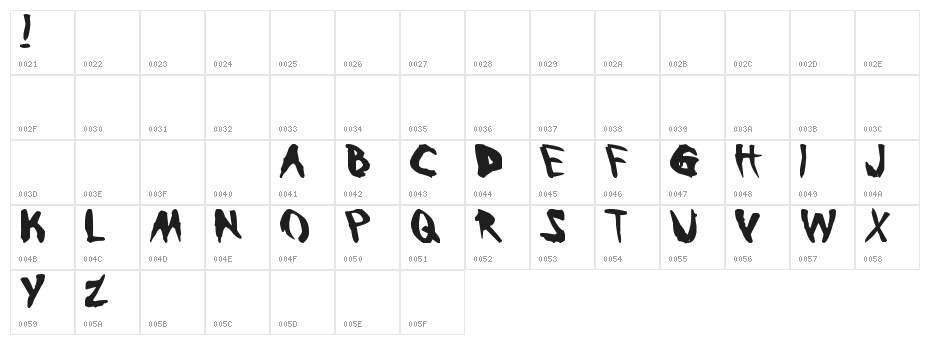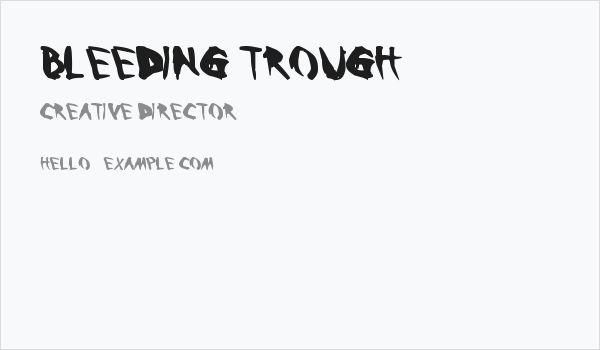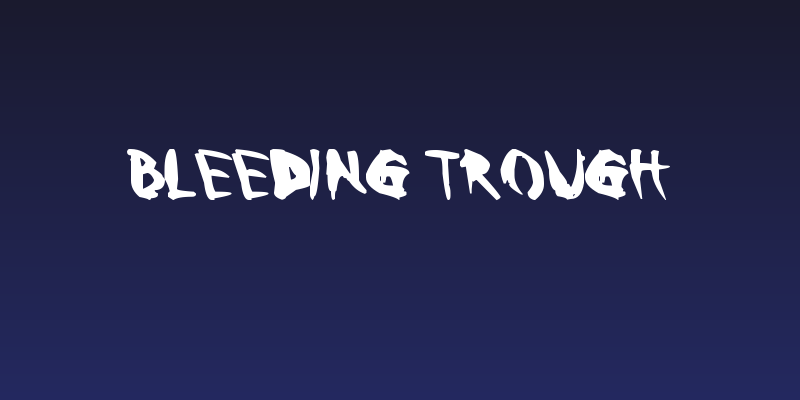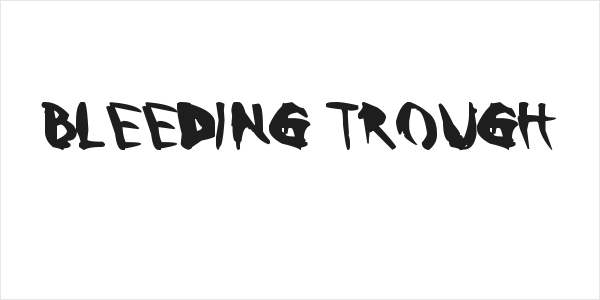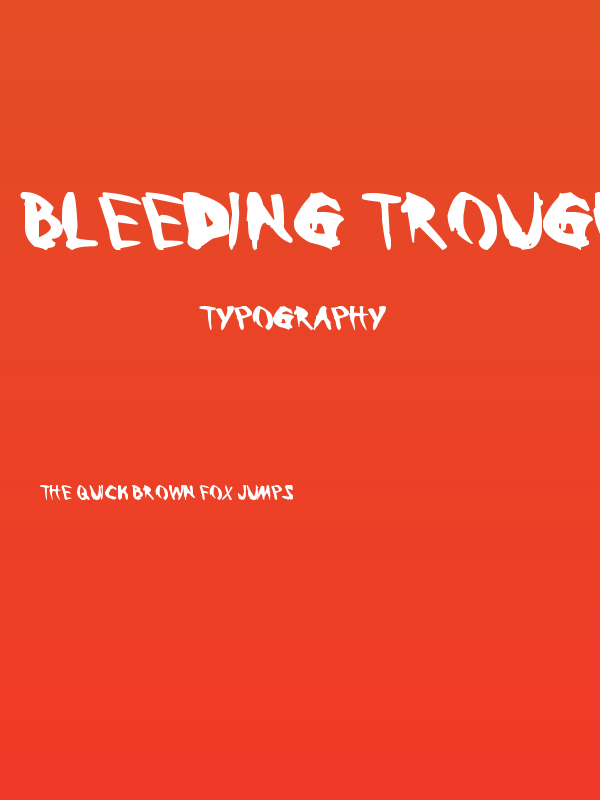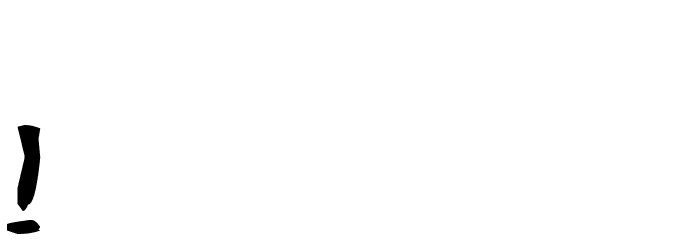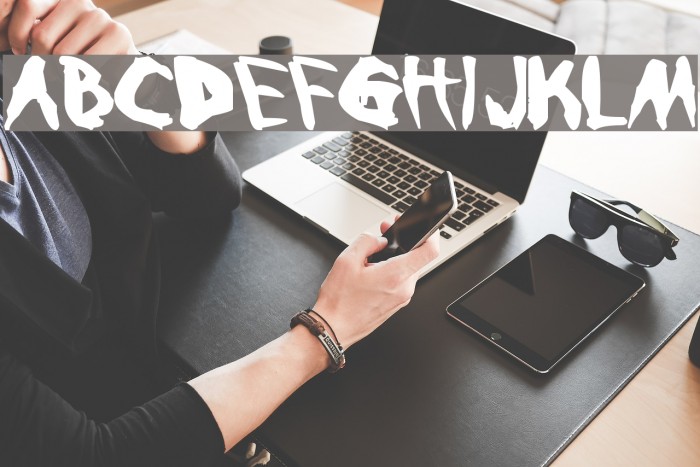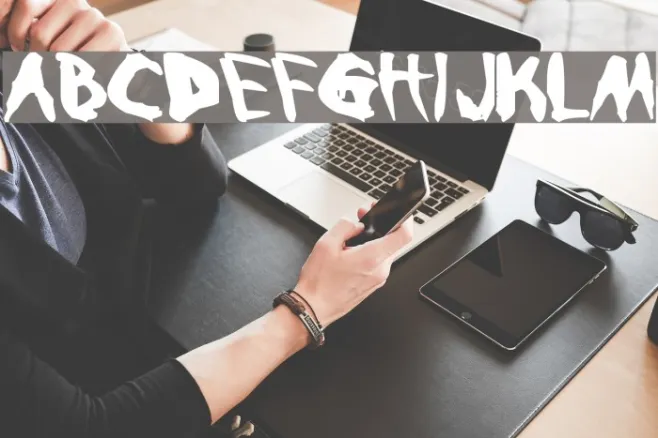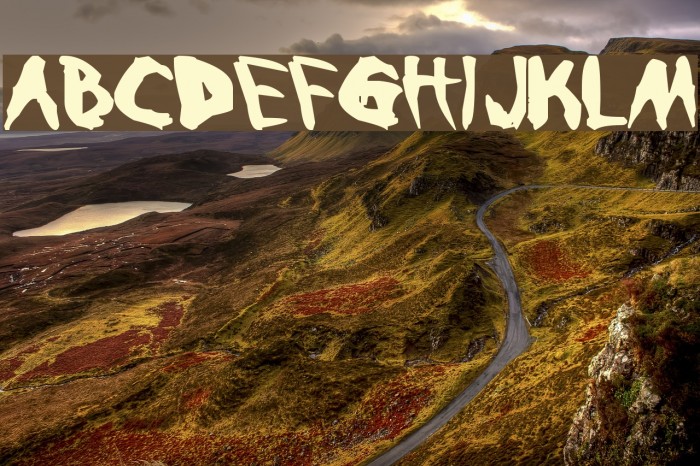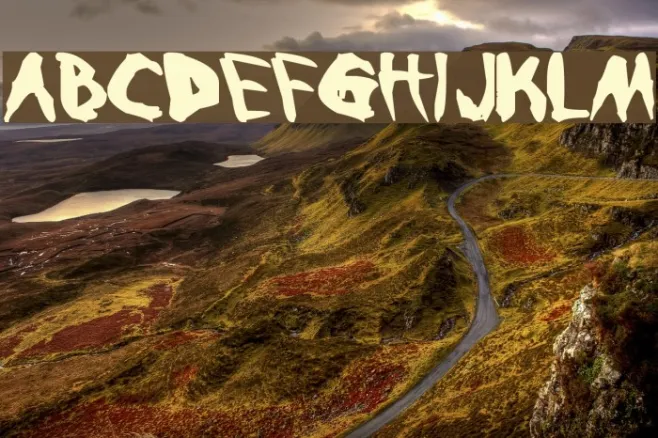
Bleeding Trough Font
Bleeding Trough Description
This font features a dramatic and intense style, characterized by its jagged, irregular edges and bold, impactful presence. The letters appear as if they are bleeding or dripping, creating a sense of movement and urgency. This design evokes a raw, edgy aesthetic, making it ideal for projects that require a strong visual impact. The uppercase letters are consistent in their chaotic form, while the lowercase letters maintain the same energy. The font's unique style is both eye-catching and memorable, perfect for creating a statement. Its boldness and irregularity suggest a rebellious or unconventional theme, suitable for artistic or alternative uses.
| Proposed Projects | Ideal for horror movie posters, edgy album covers, rebellious fashion branding, or any project needing a dramatic flair. |